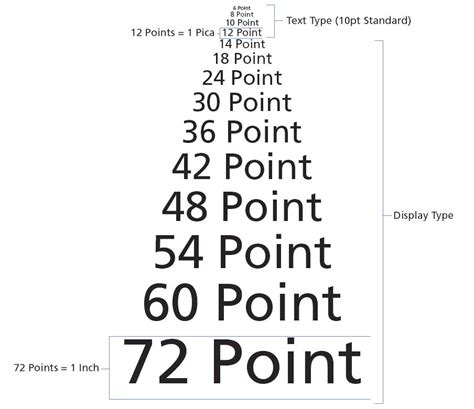
Different Font Sizes. The actual appearance of a typeface at a particular size varies with the size of its ascenders, descenders and x.
The actual appearance of a typeface at a particular size varies with the size of its ascenders, descenders and x.
The actual appearance of a typeface at a particular size varies with the size of its ascenders, descenders and x. The actual appearance of a typeface at a particular size varies with the size of its ascenders, descenders and x.